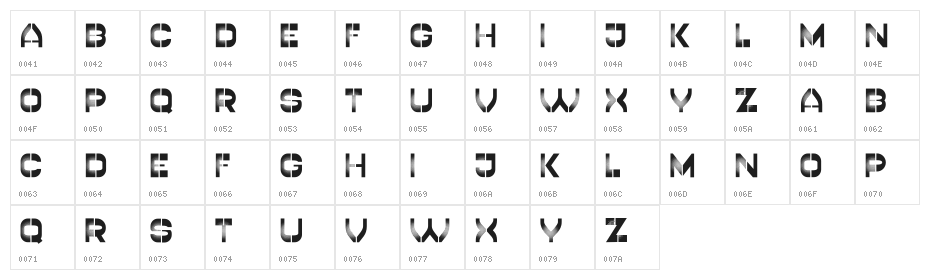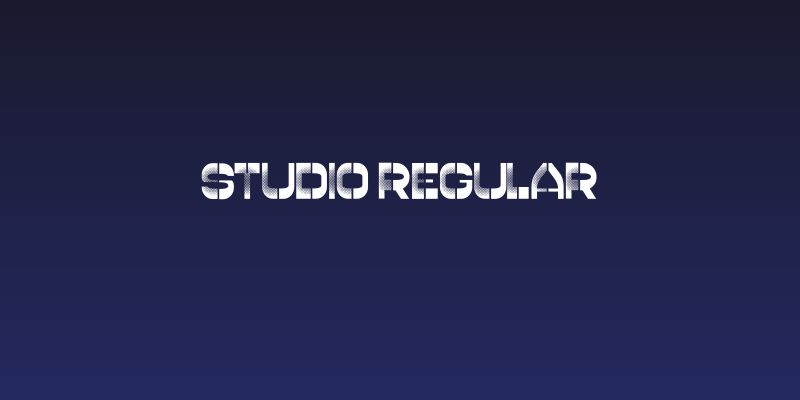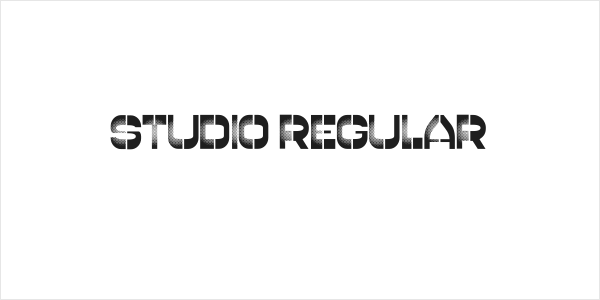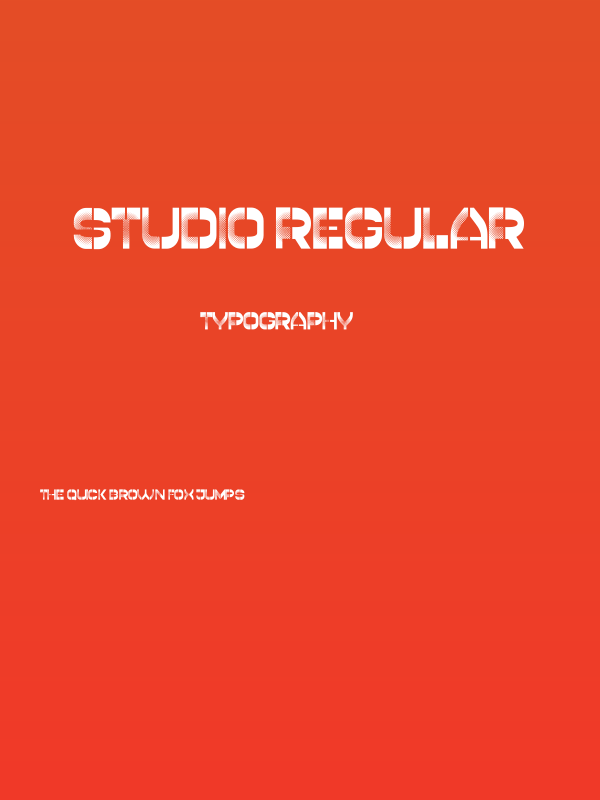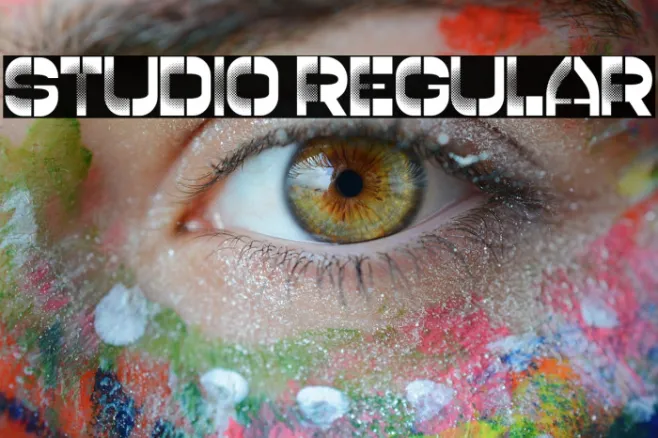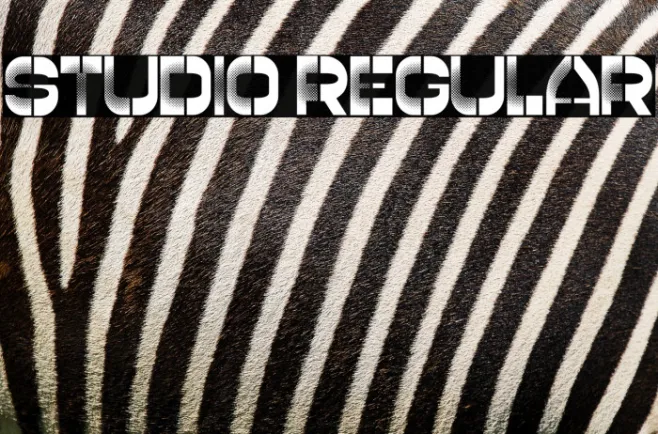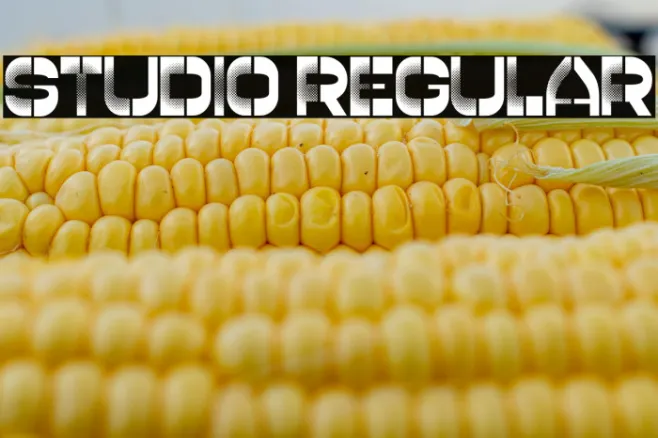
Studio Regular Font
Studio Regular Description
This font features a bold and geometric design with a distinct halftone pattern that creates a textured, dynamic appearance. The characters are constructed with sharp angles and clean lines, giving it a modern and futuristic feel. The use of negative space within the letters enhances its visual interest, making it stand out in any design. The uppercase letters are uniform in height, contributing to a cohesive and structured look. This font is ideal for projects that require a strong visual impact and a contemporary aesthetic.
| Proposed Projects | Ideal for branding, posters, album covers, and digital media that require a striking and modern look. |